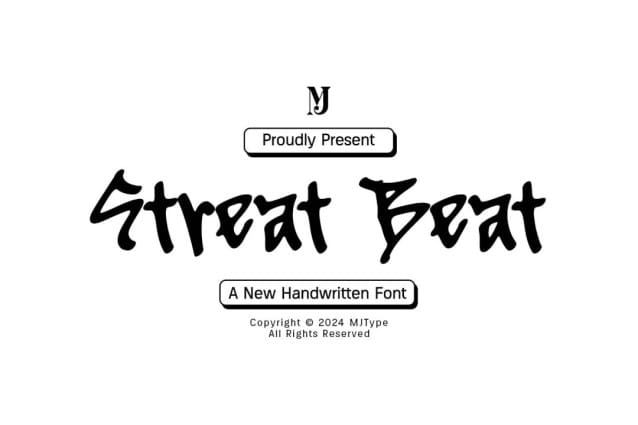
Streat Beat Font
Streat Beat Font, is a natural graffiti font. It looks stunning on thank you cards, quotes, greeting cards, logos, business cards, and every other design which needs a handwritten touch.